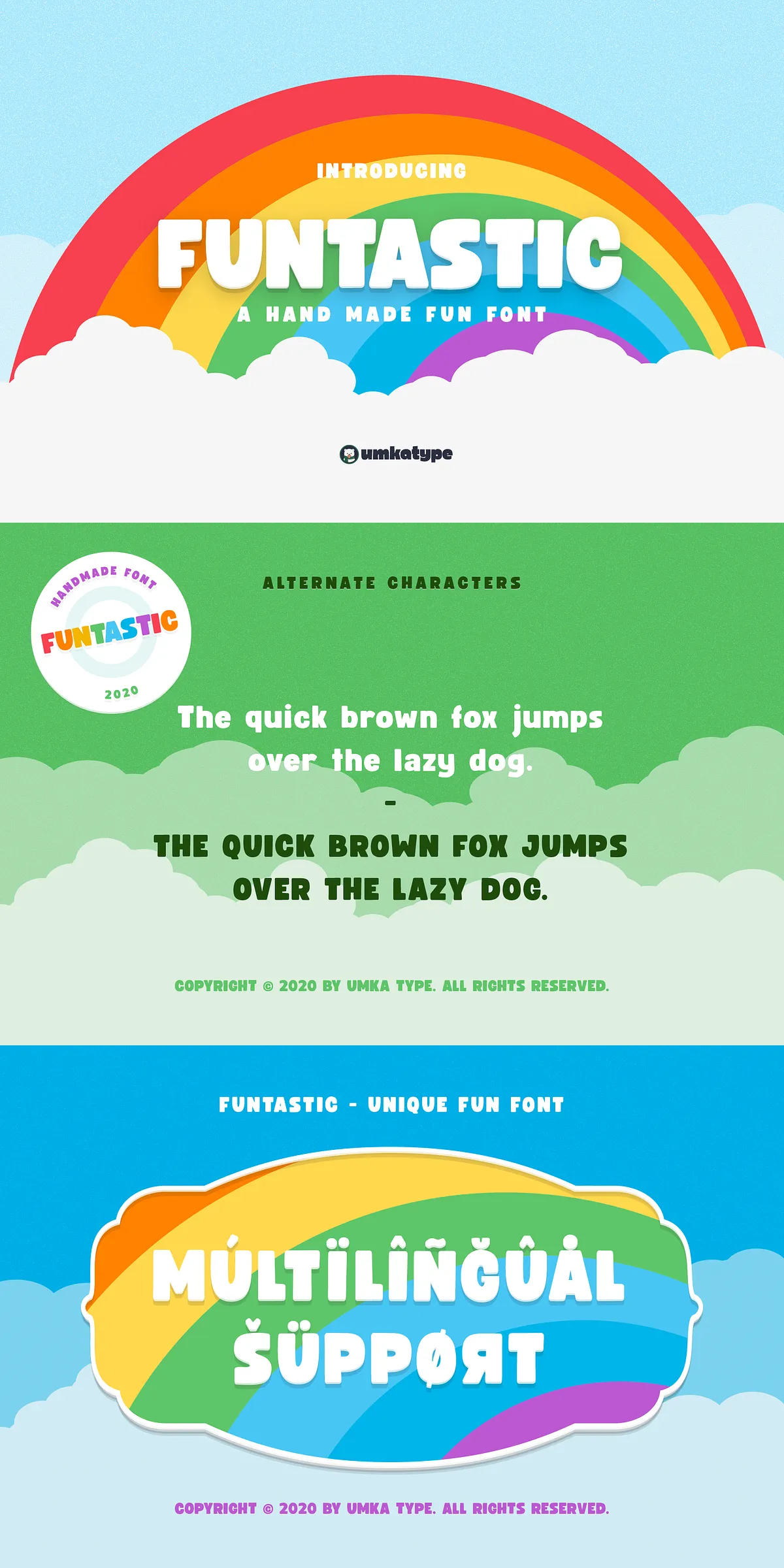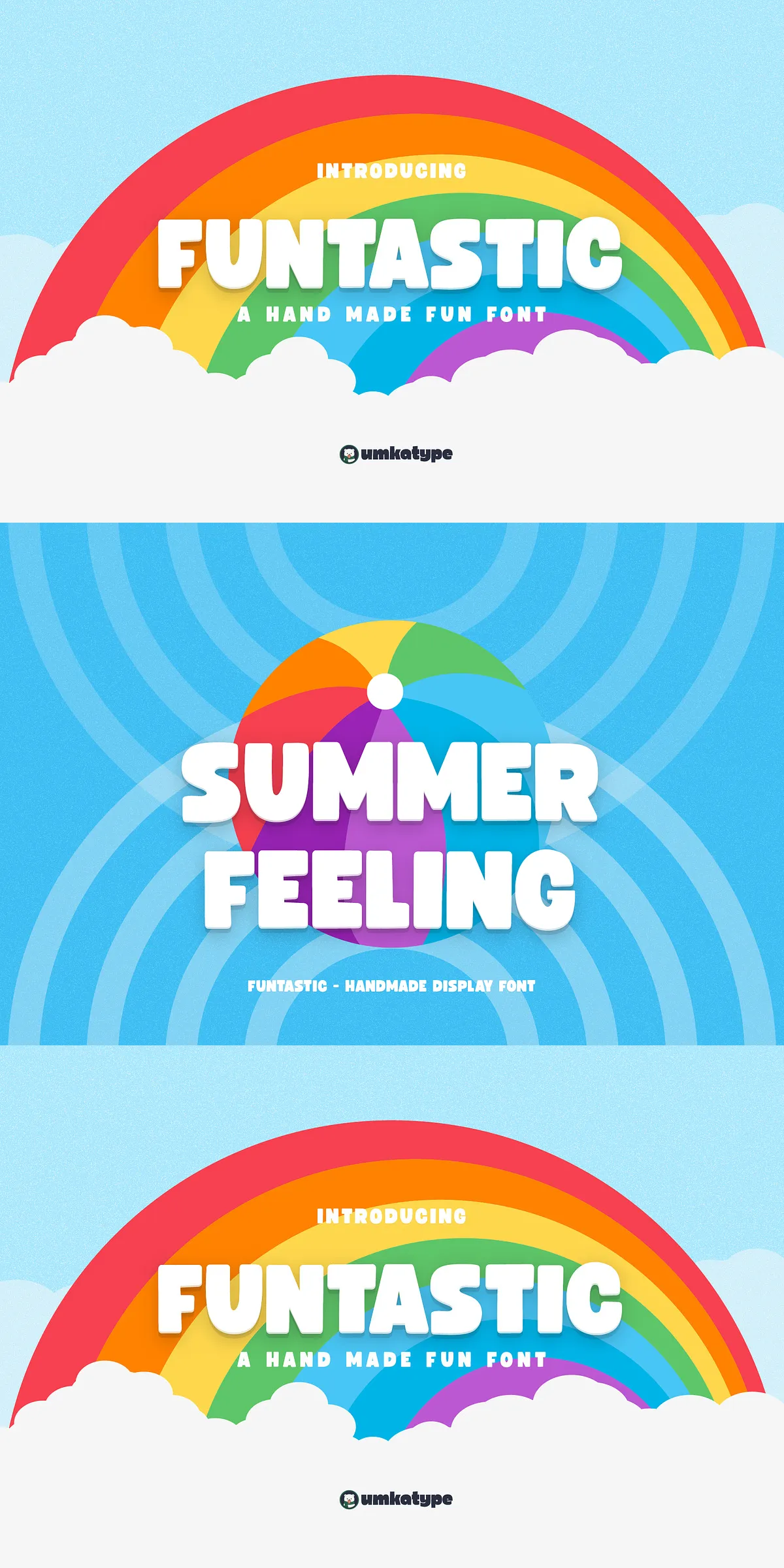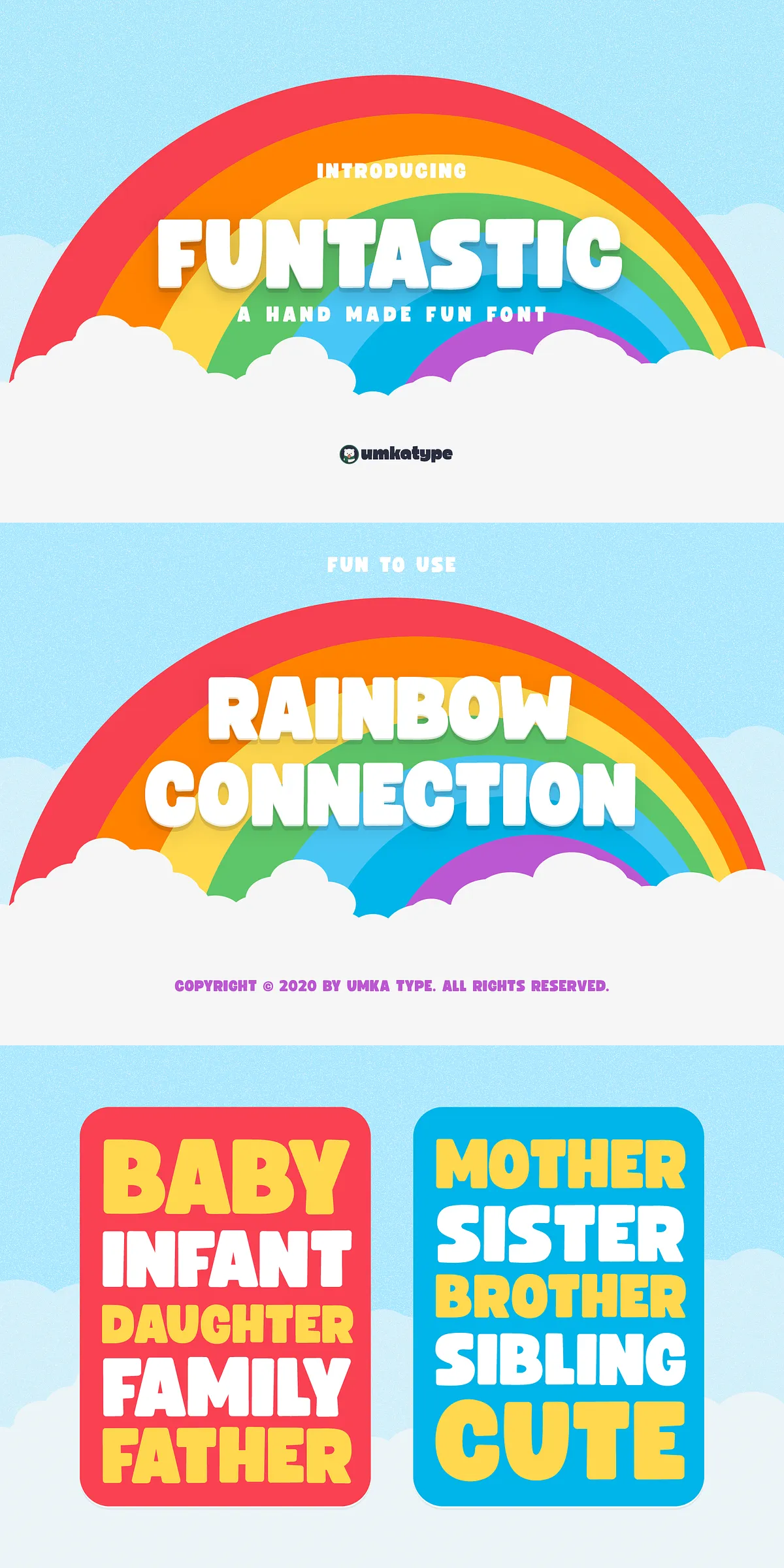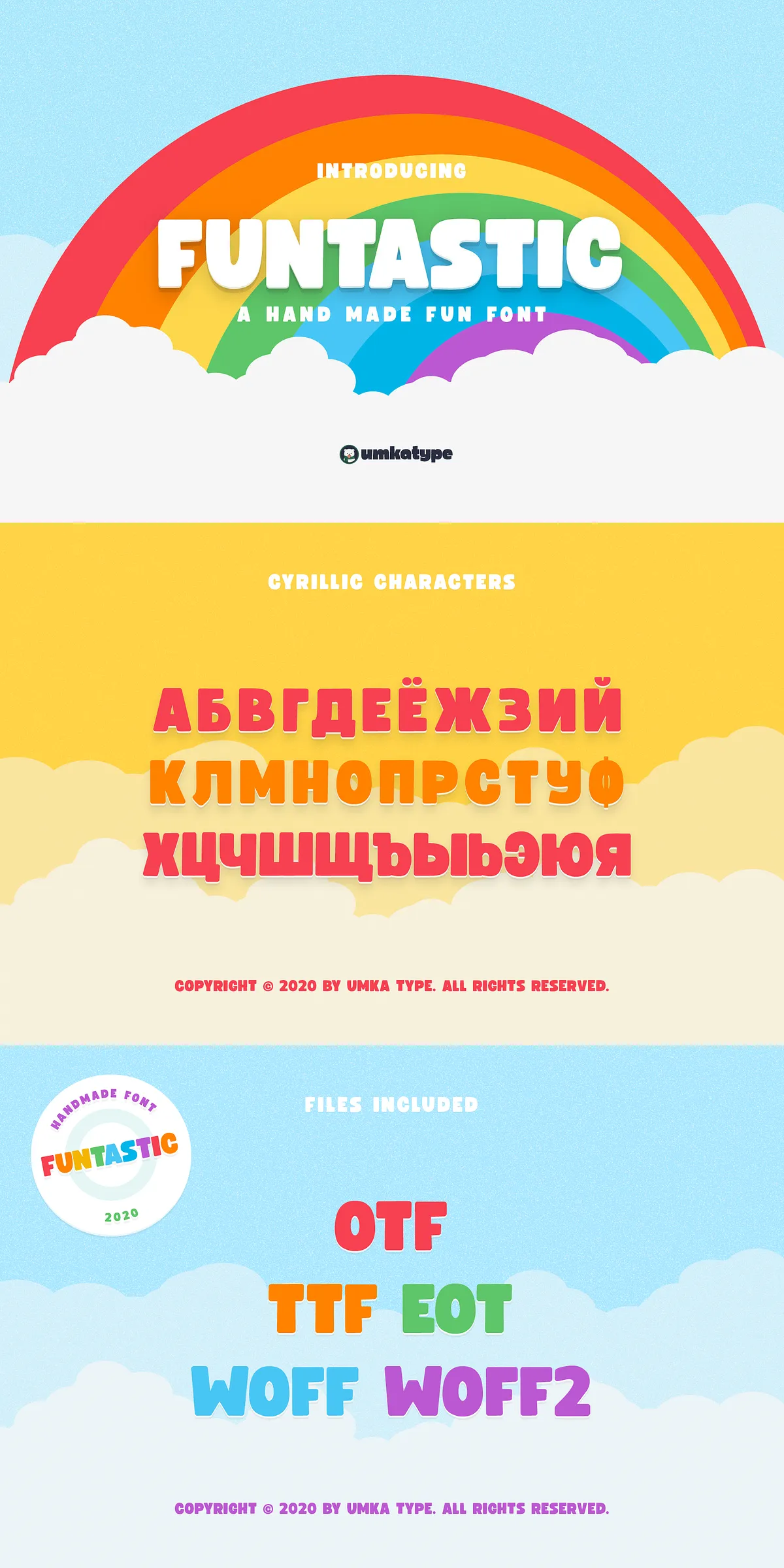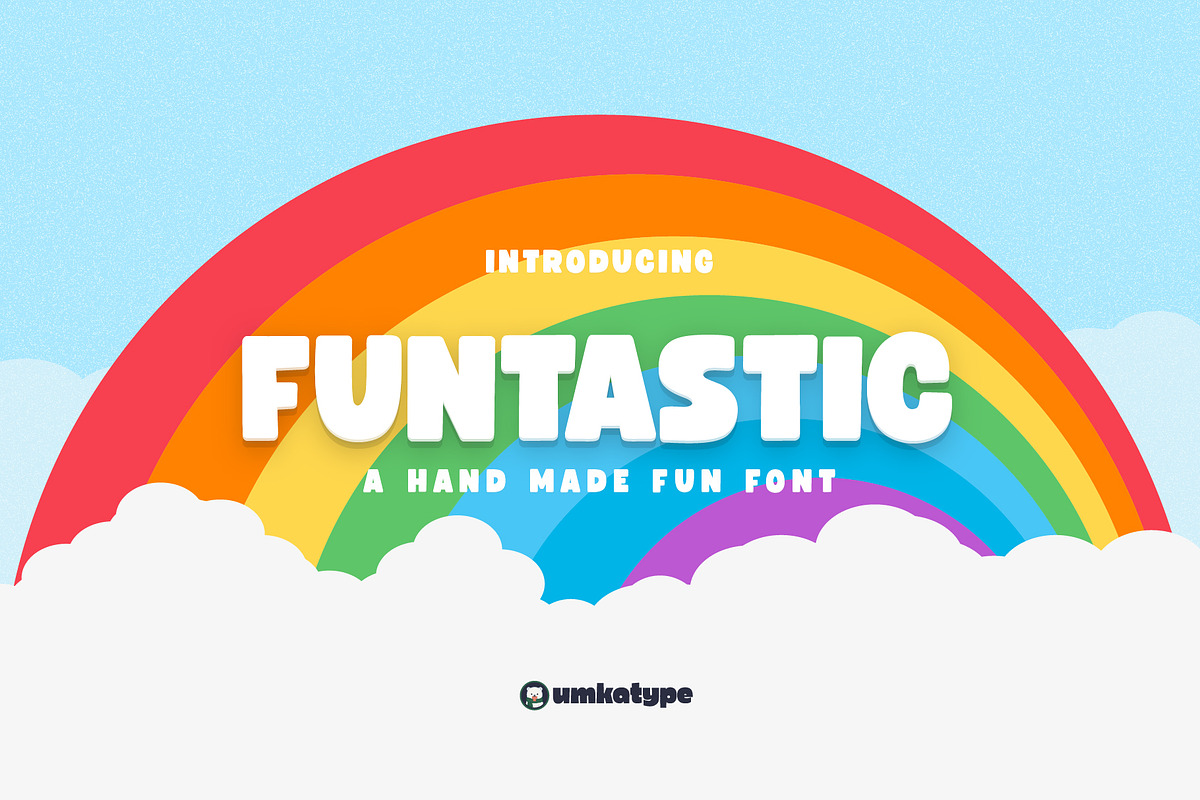
Meet Funtastic — a font that doesn’t just spell words, it dances through them. Designed for creators who believe design should spark joy, Funtastic bursts with cheerful character, lively curves, and an irrepressible spirit. It’s the digital equivalent of a rainbow-colored rollercoaster — bold, fun, and impossible to ignore. Whether you’re crafting game interfaces, pop-up social media campaigns, animated brand launches, or quirky product labels, Funtastic injects pure delight into every pixel.
Built for Fun, Powered by Precision
- Effortless Playfulness: Every letterform was handcrafted to feel energetic and whimsical — from exaggerated loops to dynamic, bouncy ascenders and descenders that keep your message jumping off the page.
Where Funtastic Shines: Real-World Applications
Funtastic isn’t just decorative — it’s strategic. Use it where personality matters most, where first impressions are made in seconds, and where your audience needs a reason to smile.
Perfect for High-Impact Creative Projects
- Game Design & Digital Interfaces: Ideal for menus, character names, UI text, and splash screens. It instantly creates a friendly, welcoming vibe that keeps players engaged and entertained from the very first click.
- Branding & Packaging: Stand out on store shelves with labels, boxes, and product names that scream fun. Use it for children’s products, candy brands, stationery, and lifestyle items where emotion and personality drive sales.
- Social Media & Content Marketing: Create bold, share-worthy posts, quotes, and thumbnails. Funtastic grabs attention in crowded feeds and turns passive scrollers into active sharers.
- Web & App Typography: Transform landing pages, blog headers, and CTAs with bold, playful headlines. Turn visitors into fans with typography that feels human, approachable, and full of energy.
- Event Promotions & Invitations: Make birthday parties, game launches, and festivals feel magical. Funtastic turns simple text into unforgettable experiences.
- Scalable & Crisp at Any Size: Whether your logo appears on a mobile screen or a giant billboard, Funtastic maintains clarity and charm without pixelation or distortion.